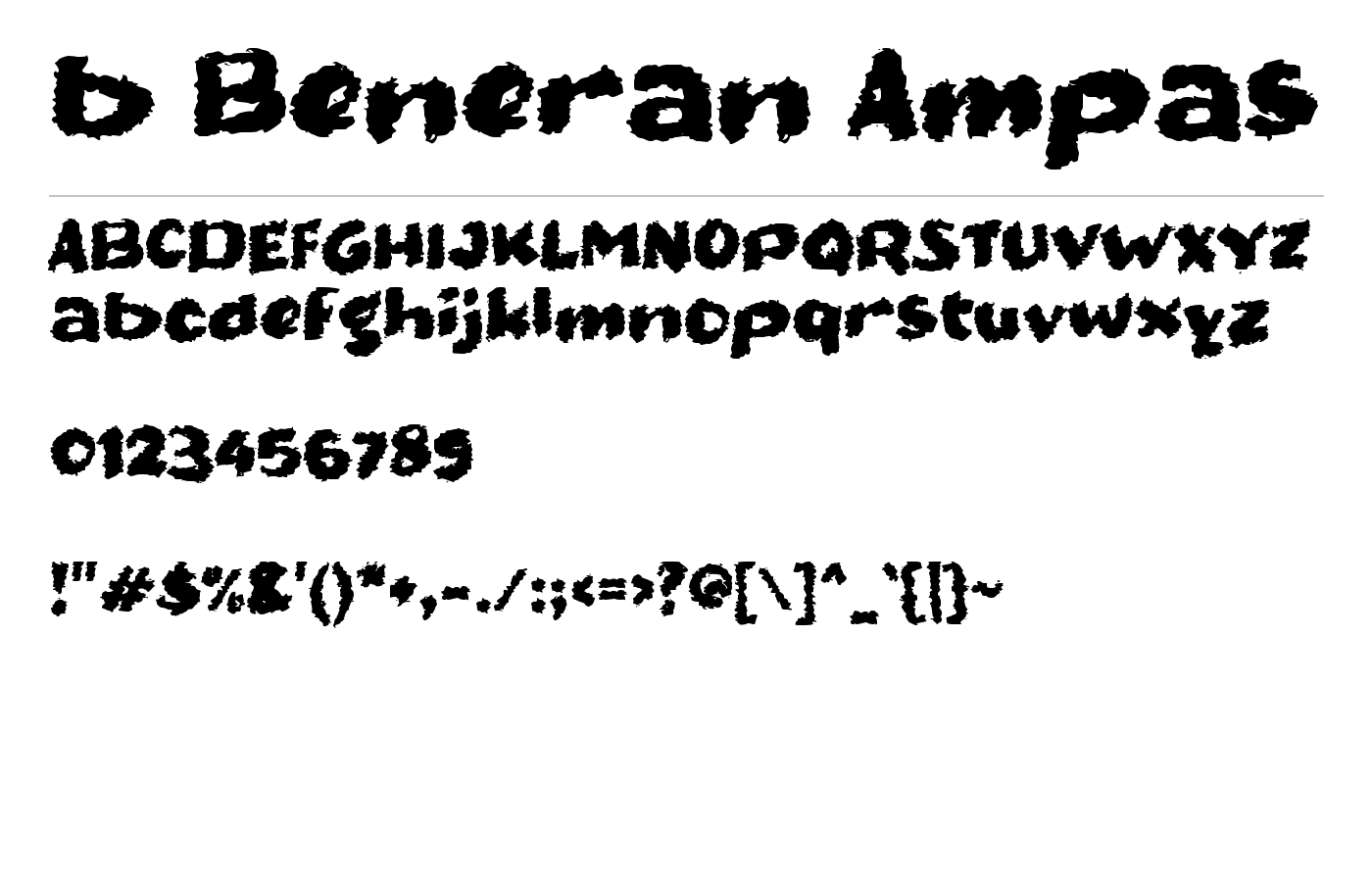
Beneran Ampas is a bold, textured sans serif font with a rugged, hand-crafted feel that resembles ink splatters or rough brush strokes. Its irregular, dense letterforms convey a raw, expressive personality, making it ideal for creative, edgy designs like posters, urban branding, or bold headlines that want to stand out with a gritty, artistic vibe. This distinctive typeface works best when used sparingly to add a strong visual impact and a sense of lively, unconventional energy.
b Beneran Ampas Font
About b Beneran Ampas Font